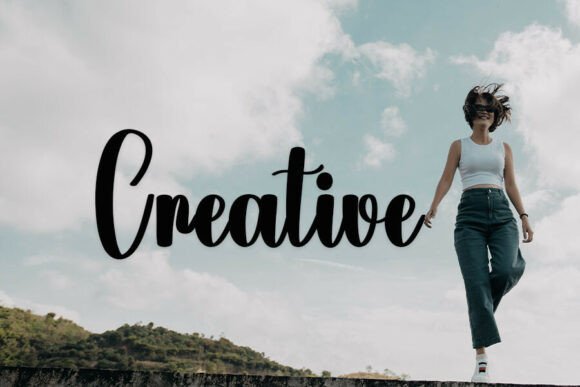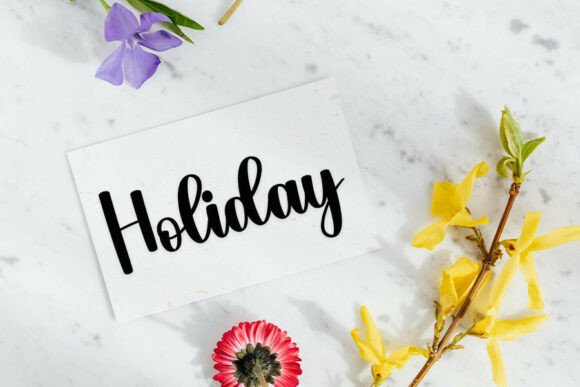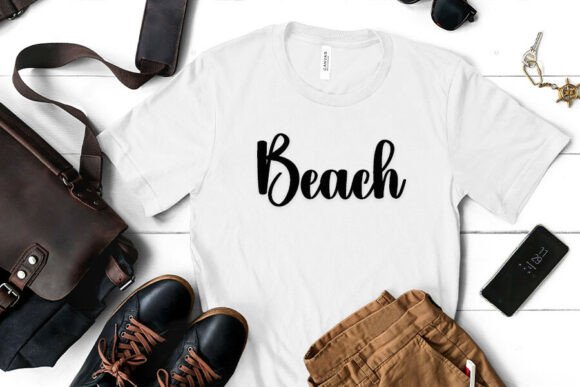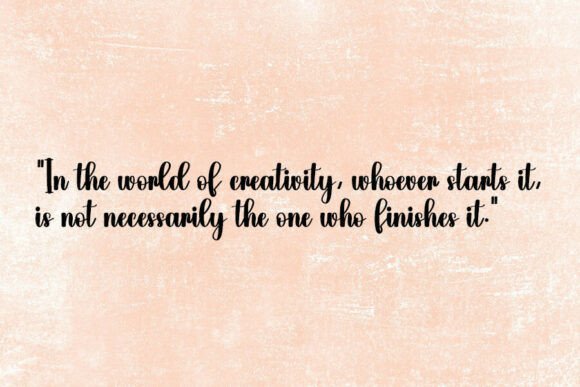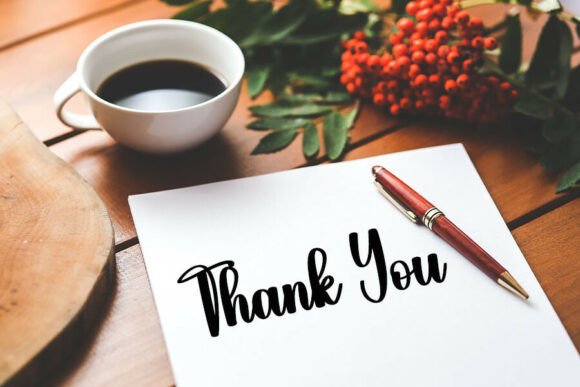
Celebrate with Flair: The Magic of Christmas Birthday Font
Are you looking for a font that embodies the festive spirit of Christmas and adds a touch of elegance to your designs? Look no further than the Christmas Birthday font, a modern calligraphy typeface that combines the warmth of the holiday season with refined sophistication. In this article, we’ll explore the unique characteristics of this beautiful font and how it can elevate your holiday designs.
A Festive yet Elegant Typeface
The Christmas Birthday font is a masterful blend of festive warmth and refined elegance. Its smooth, celebratory swashes and moderate weight make it highly legible, while its beautifully decorative elements add a touch of luxury to any text. This script font is perfect for designers and crafters who want to create stunning holiday designs that exude joy and sophistication.
Key Features of Christmas Birthday Font
- Smooth Swashes: The font features beautiful, smooth swashes that add a touch of elegance to any text.
- Moderate Weight: The moderate weight of the font makes it highly legible, even at smaller sizes.
- Decorative Elements: The font’s decorative elements, such as flourishes and swashes, add a touch of luxury to any text.
- Versatile: The Christmas Birthday font is highly versatile and can be used for a wide range of design projects, from holiday cards to event invitations and branding.
Perfect for Holiday Designs
The Christmas Birthday font is perfect for a wide range of holiday designs, including:
- Holiday Cards: Add a touch of elegance to your holiday cards with this beautiful font.
- Festive Event Invitations: Create stunning event invitations that set the tone for a joyful and festive celebration.
- Personalized Gifts: Add a personal touch to your gifts with beautifully designed labels and tags featuring the Christmas Birthday font.
- Stylish Logos: Create a lasting impression with a stylish logo that incorporates the Christmas Birthday font.
- Upscale Winter Branding: Elevate your winter branding with a sophisticated font that exudes luxury and refinement.
Why Choose Christmas Birthday Font?
So why choose the Christmas Birthday font for your holiday designs? Here are just a few reasons:
- Unique and Eye-catching: The font’s unique blend of festive warmth and refined elegance makes it stand out from more traditional holiday fonts.
- Highly Legible: The moderate weight and smooth swashes of the font make it highly legible, even at smaller sizes.
- Versatile: The font’s versatility makes it perfect for a wide range of design projects, from holiday cards to event invitations and branding.
- Handwritten Feel: The font’s gorgeous flow ensures a handwritten feel of sincere enthusiasm and high-quality craftsmanship, elevating any text it graces.
Tips for Using Christmas Birthday Font
Here are a few tips for using the Christmas Birthday font in your designs:
- Experiment with Sizes: The font looks great at a range of sizes, from small and delicate to large and bold.
- Play with Colors: The font’s elegant design looks great in a range of colors, from traditional holiday colors like red and green to more modern metallic colors like gold and silver.
- Add Decorative Elements: Consider adding decorative elements, such as flourishes and swashes, to give your design an extra touch of elegance.
The Christmas Birthday font is a beautiful and versatile typeface that is perfect for holiday designs. Its unique blend of festive warmth and refined elegance makes it stand out from more traditional holiday fonts, while its highly legible design ensures that it can be used for a wide range of projects. Whether you’re a designer or crafter, this font is sure to become a favorite in your holiday design toolkit.